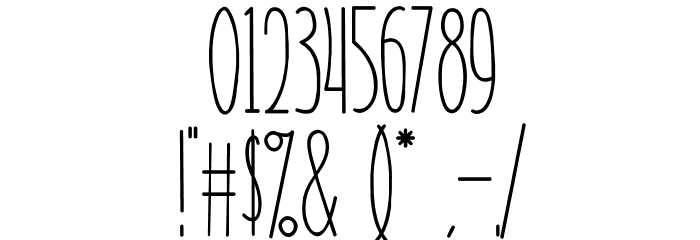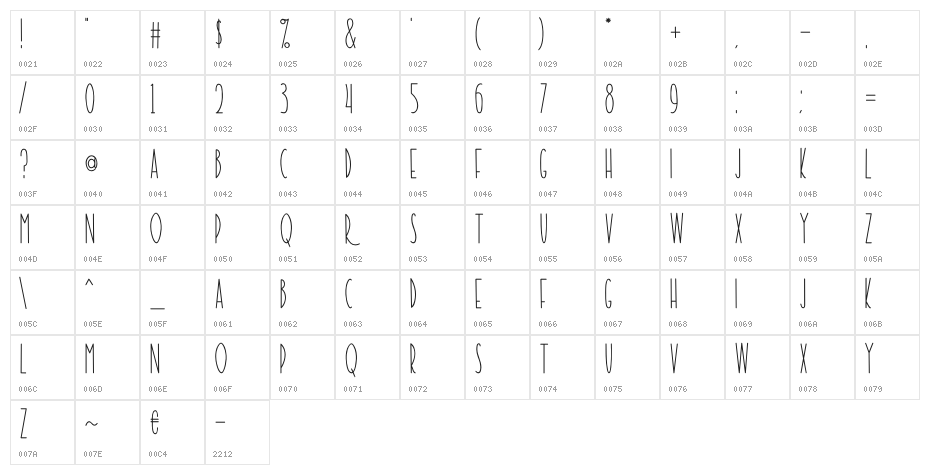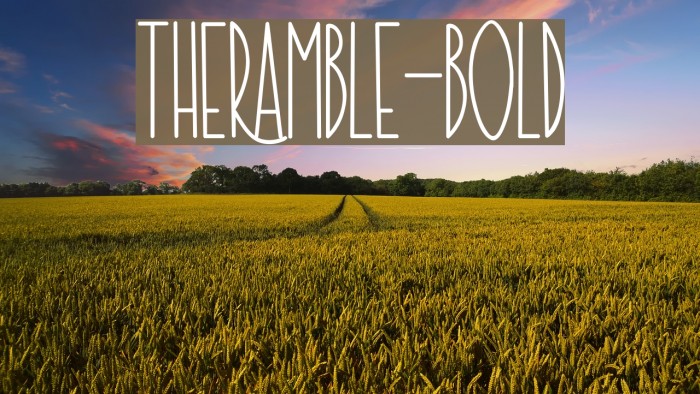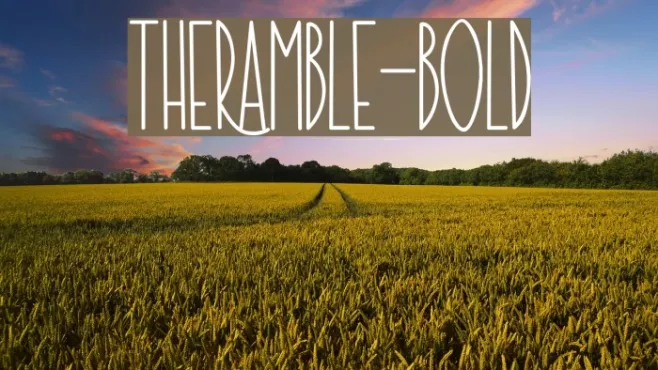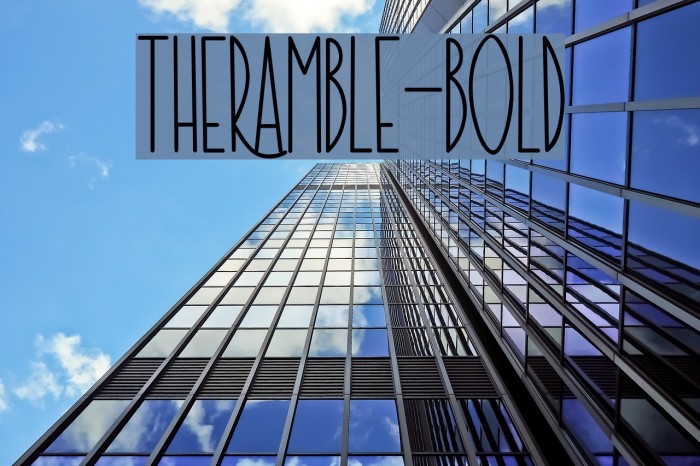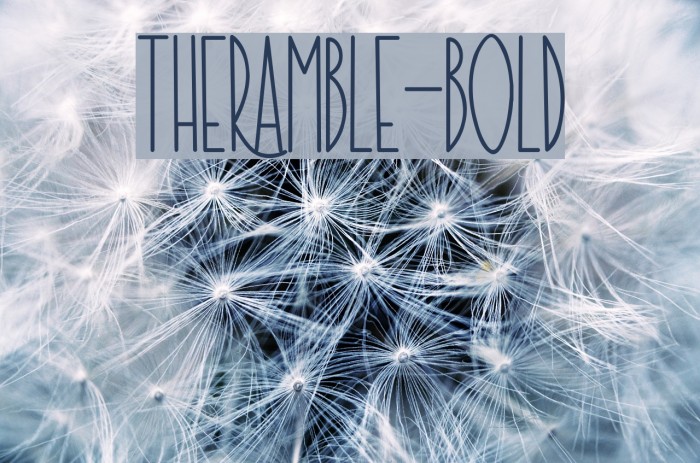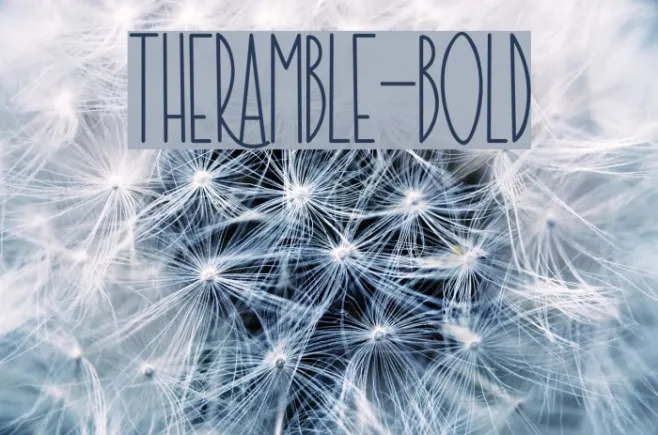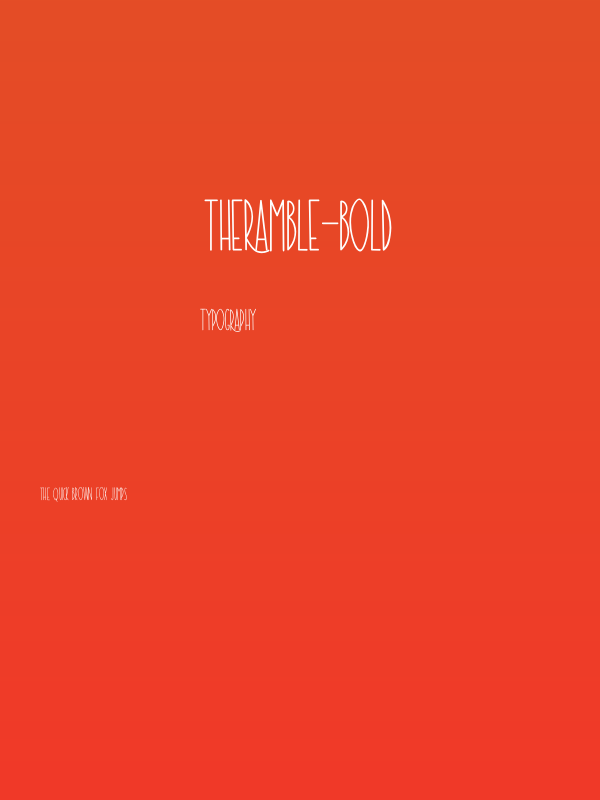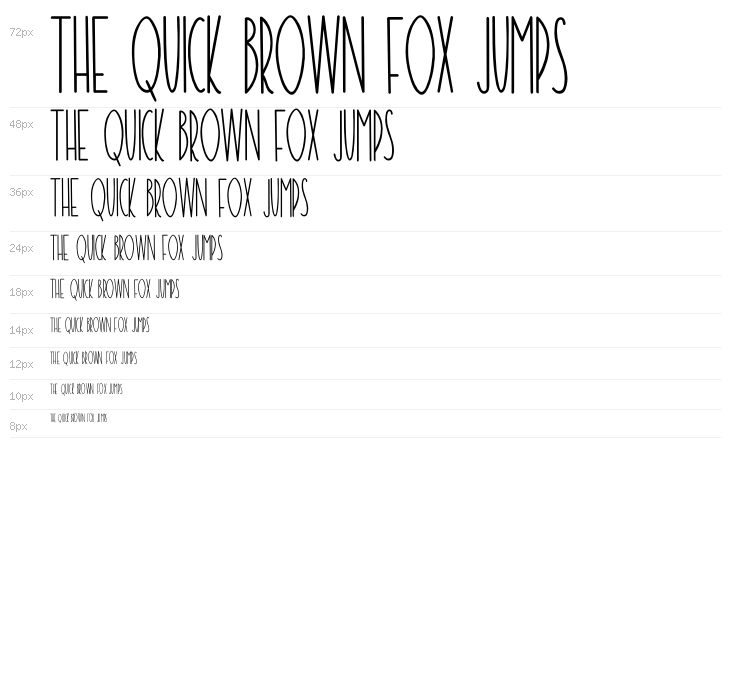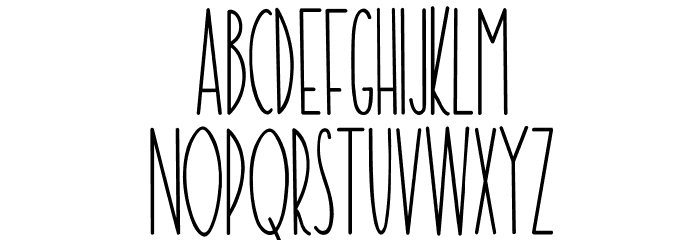
TheRamble-Bold Font
TheRamble-Bold Description
This font features tall, narrow characters with a playful and whimsical style. The letters are elongated with a consistent stroke width, giving it a unique and eye-catching appearance. The uppercase and lowercase letters maintain a uniform height, contributing to its cohesive look. The numbers and special characters are designed to match the overall style, ensuring a harmonious visual presentation. This font's distinctiveness makes it suitable for creative and artistic projects.
| Proposed Projects | Ideal for posters, invitations, and branding materials that require a playful and artistic touch. |